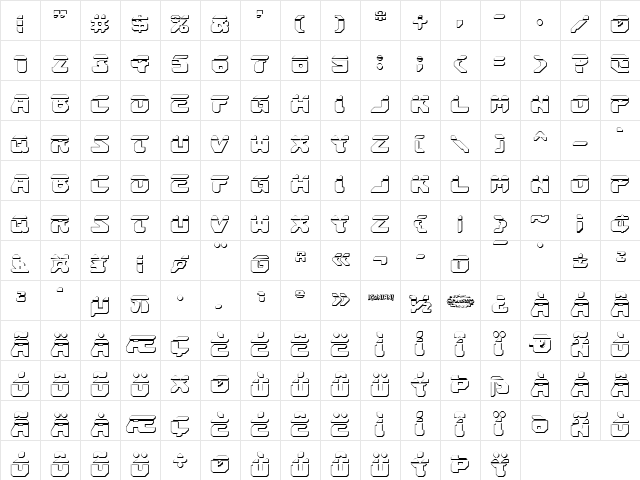
Astropolis Laser 3D Regular Font Preview
Astropolis Laser 3D Regular
Design Context for Astropolis Laser 3D Typeface
Astropolis Laser 3D is a composed and adaptable typeface that performs quietly and consistently across a wide range of design contexts.
Pro Tip: Use Astropolis Laser 3D in both headline and body roles to test its range before committing to a single application.